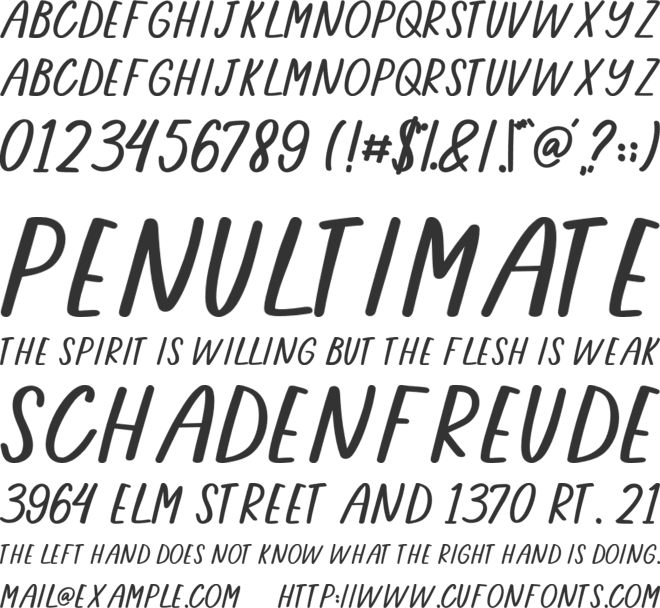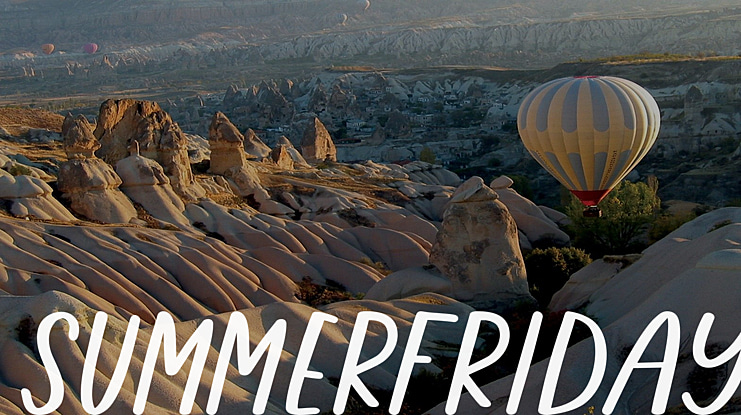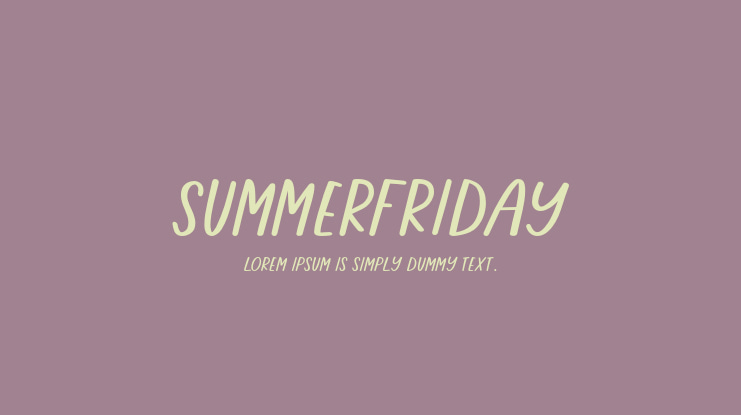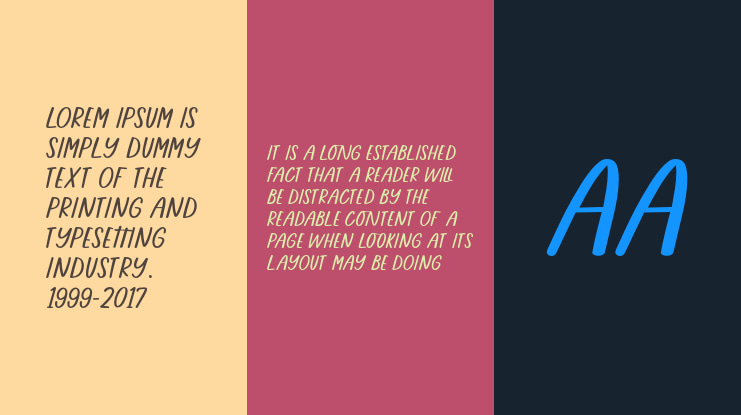
Summerfriday Font
Need Free font? Get a handwritten font right away. 'Summer Friday' font has All caps characters that are perfect for greetings cards, invites, quotes, merch and so much more.